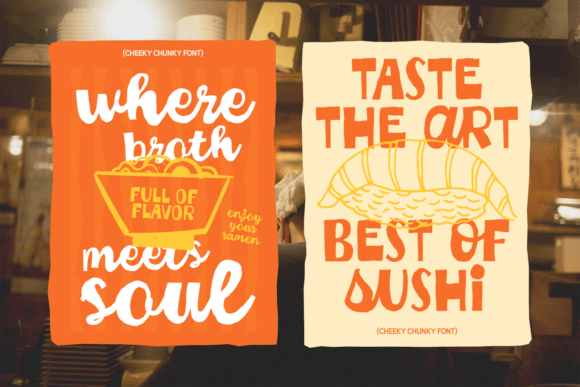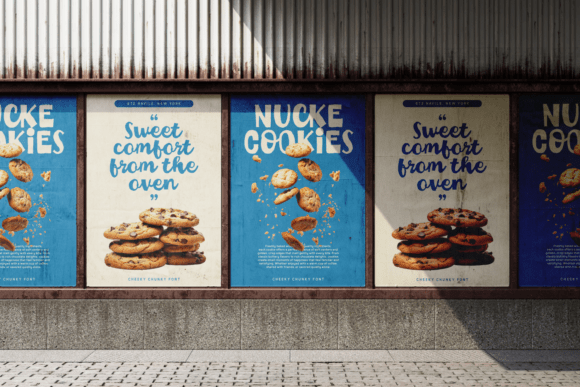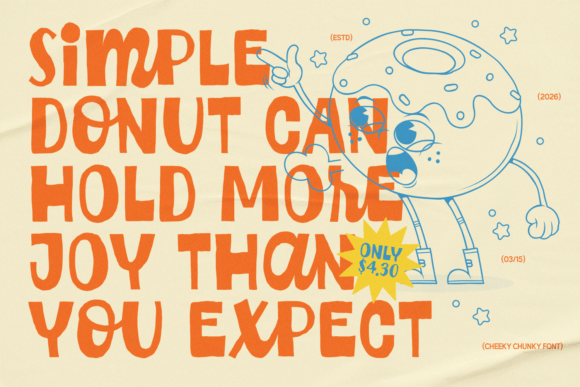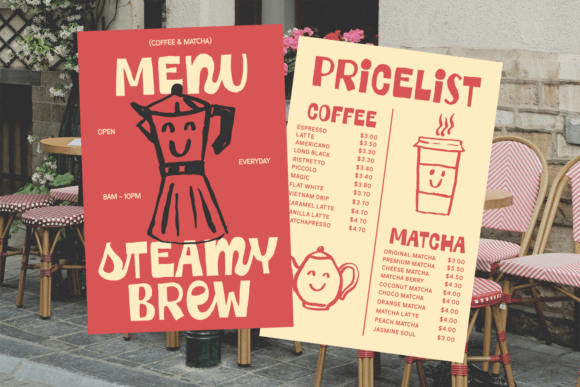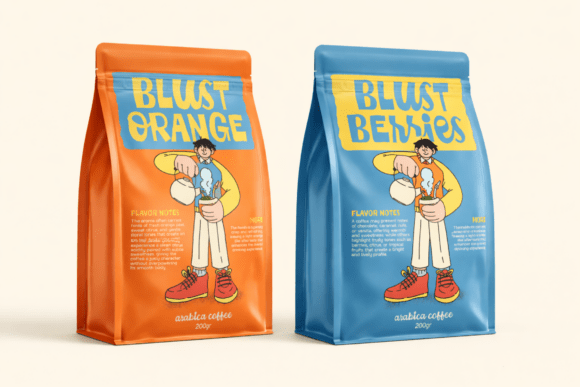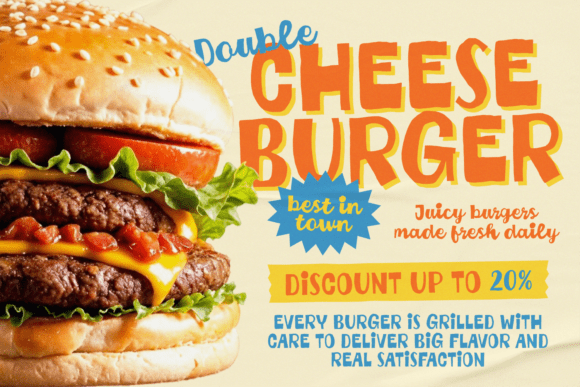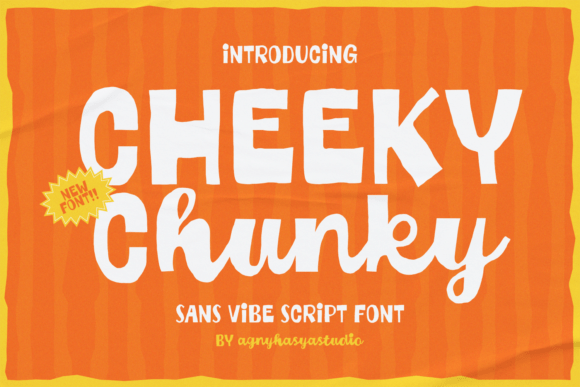
Introducing Cheeky Chunky Font: The Playful Duo that’s Revolutionizing Design
Are you tired of using the same old fonts in your designs? Look no further than Cheeky Chunky, a playful duo font that’s taking the design world by storm. This innovative font combines bold, chunky uppercase sans letters with a lively, handmade lowercase script, making it the perfect addition to any design project.
A Font that Packs a Punch
Cheeky Chunky is designed to bring fun, warmth, and personality into your designs. The contrast between strong sans-serif capitals and expressive script lowercase creates a dynamic and flexible typographic system that’s perfect for eye-catching headlines, logos, packaging, and modern branding projects. Whether you’re working on food branding, social media graphics, posters, or product designs, Cheeky Chunky helps your message stand out with confidence and charm.
The Science behind Cheeky Chunky
So, what makes Cheeky Chunky so special? The secret lies in its unique combination of bold, chunky uppercase letters and lively, handmade lowercase script. The uppercase sans letters are strong and sturdy, providing a solid foundation for your designs. Meanwhile, the lowercase script adds a touch of whimsy and personality, making your designs feel more approachable and engaging.
One of the best things about Cheeky Chunky is its versatility. This font can be used in a wide range of design projects, from bold and playful to elegant and sophisticated. Here are just a few ideas to get you started:
- Food branding: Use Cheeky Chunky to create eye-catching labels, packaging, and advertising materials that will make your food products stand out on the shelves.
- Social media graphics: Add a touch of personality to your social media posts with Cheeky Chunky’s playful and engaging font.
- Posters and flyers: Create bold and eye-catching posters and flyers that will grab attention and leave a lasting impression.
- Product designs: Use Cheeky Chunky to add a touch of whimsy and personality to your product designs, from t-shirts to tote bags.
Why Choose Cheeky Chunky?
So, why should you choose Cheeky Chunky for your design projects? Here are just a few reasons:
- Unique and playful: Cheeky Chunky is a one-of-a-kind font that’s sure to make your designs stand out from the crowd.
- Versatile: This font can be used in a wide range of design projects, from bold and playful to elegant and sophisticated.
- Easy to read: Despite its playful nature, Cheeky Chunky is surprisingly easy to read, making it perfect for body text and headlines.
- High-quality: Cheeky Chunky is a high-quality font that’s been carefully crafted to ensure that it looks great in any design.
Getting Started with Cheeky Chunky
Cheeky Chunky is a game-changing font that’s perfect for designers and crafters who want to add a touch of personality to their designs. With its unique combination of bold, chunky uppercase letters and lively, handmade lowercase script, this font is sure to make your designs stand out from the crowd. So why wait? Download Cheeky Chunky today and start creating designs that are full of fun, warmth, and personality!